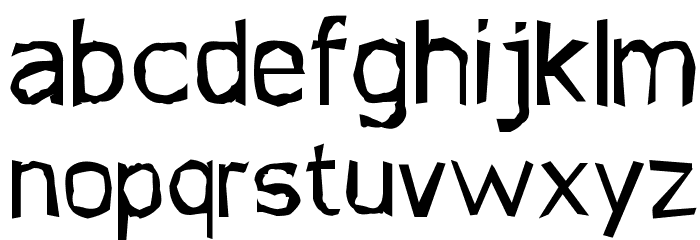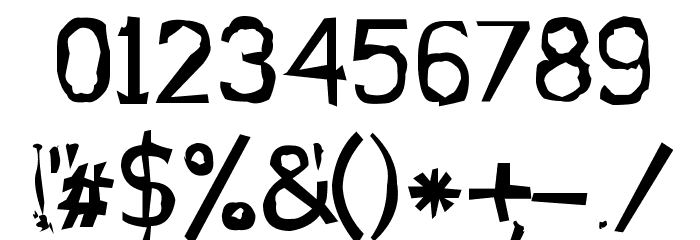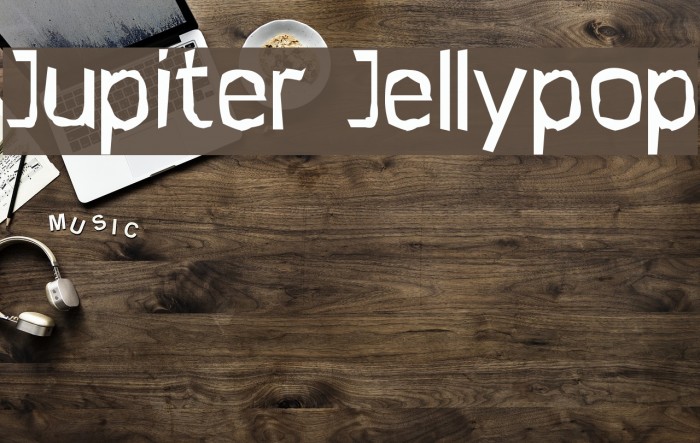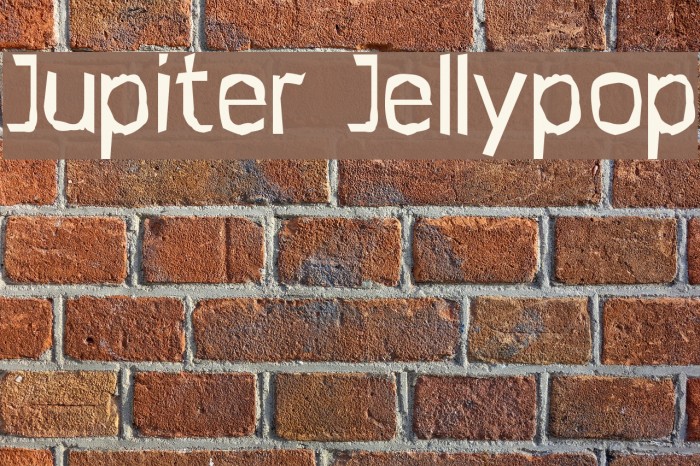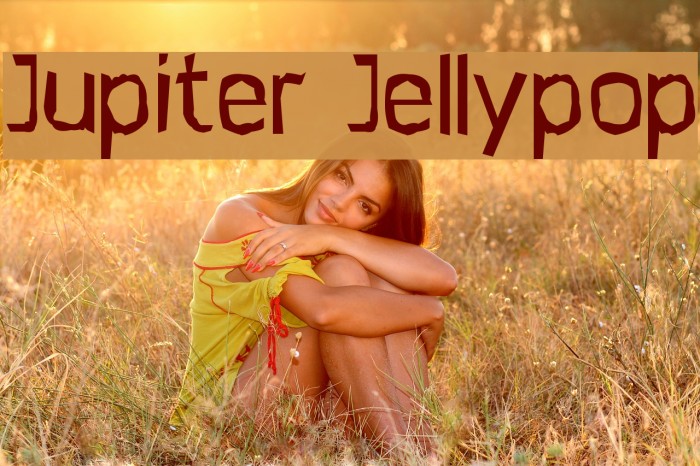
Jupiter Jellypop Font
This font features a playful and quirky design, characterized by its irregular and slightly distorted letterforms. The strokes are uneven, giving it a hand-drawn, whimsical appearance. The uppercase and lowercase letters maintain a consistent style, with a unique flair that adds personality to each character. The numbers and special characters follow the same playful aesthetic, making the font suitable for creative and informal projects. Its distinctive style makes it stand out, ideal for capturing attention and conveying a sense of fun and creativity.
A playful, hand-drawn font with irregular, whimsical letterforms.
- Proposed Projects: Ideal for children's books, creative posters, playful branding, and informal invitations.
- Overall Style: Playful, Whimsical